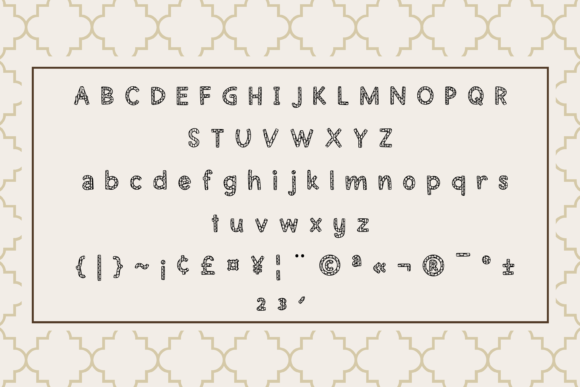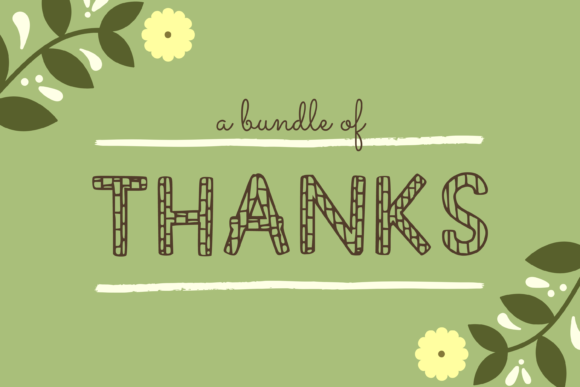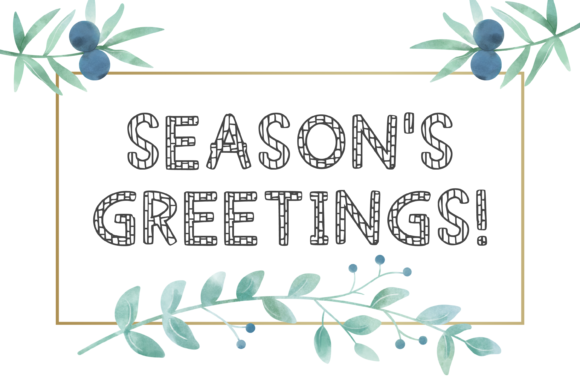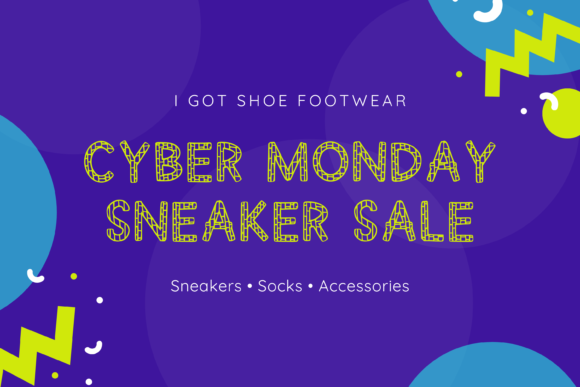
Bricks Font: The Ultimate Decorative Font for Creative Projects
Are you tired of using the same old fonts in your design projects? Look no further than Bricks Font, a cool lettered and unique decorative font that’s sure to take your designs to the next level. With its outstanding appearance and versatility, Bricks Font is the perfect addition to any project, and we’re excited to dive into its features and benefits in this article.
What is Bricks Font?
Bricks Font is a decorative font that’s designed to add a touch of personality to your designs. Its unique lettering style is reminiscent of bricks, hence the name, and features a bold and eye-catching appearance that’s sure to grab attention. Whether you’re working on a logo, poster, or social media graphic, Bricks Font is the perfect choice for designers and crafters looking to add some flair to their projects.
Key Features of Bricks Font
- Unique Lettering Style: Bricks Font features a one-of-a-kind lettering style that’s sure to set your designs apart from the rest.
- Bold and Eye-Catching: The font’s bold appearance makes it perfect for headlines, titles, and other design elements that need to grab attention.
- Versatile: Bricks Font looks outstanding on a variety of design ideas, from logos and posters to social media graphics and more.
Benefits of Using Bricks Font
So why should you choose Bricks Font for your next project? Here are just a few benefits of using this amazing decorative font:
- Adds Personality to Your Designs: Bricks Font is the perfect way to add some personality to your designs and make them stand out from the crowd.
- Increases Visual Appeal: The font’s bold and eye-catching appearance is sure to grab attention and increase the visual appeal of your designs.
- Versatile and Adaptable: Bricks Font can be used on a variety of design projects, from logos and posters to social media graphics and more.
- Time-Saving: With Bricks Font, you can create professional-looking designs in no time, saving you time and effort.
Design Ideas Using Bricks Font
So what can you create with Bricks Font? The possibilities are endless, but here are a few design ideas to get you started:
- Logos and Branding: Use Bricks Font to create a bold and eye-catching logo that’s sure to represent your brand.
- Posters and Flyers: Add some personality to your posters and flyers with Bricks Font, perfect for advertising events, promotions, and more.
- Social Media Graphics: Use Bricks Font to create eye-catching social media graphics that are sure to grab attention and increase engagement.
- Crafting and DIY Projects: Bricks Font is perfect for crafters and DIY enthusiasts looking to add a personal touch to their projects, from handmade cards to wood signs and more.
In conclusion, Bricks Font is a cool lettered and unique decorative font that’s sure to take your designs to the next level. With its outstanding appearance and versatility, it’s the perfect addition to any project. Whether you’re a designer, crafter, or DIY enthusiast, Bricks Font is a must-have font that’s sure to inspire creativity and bring your designs to life.